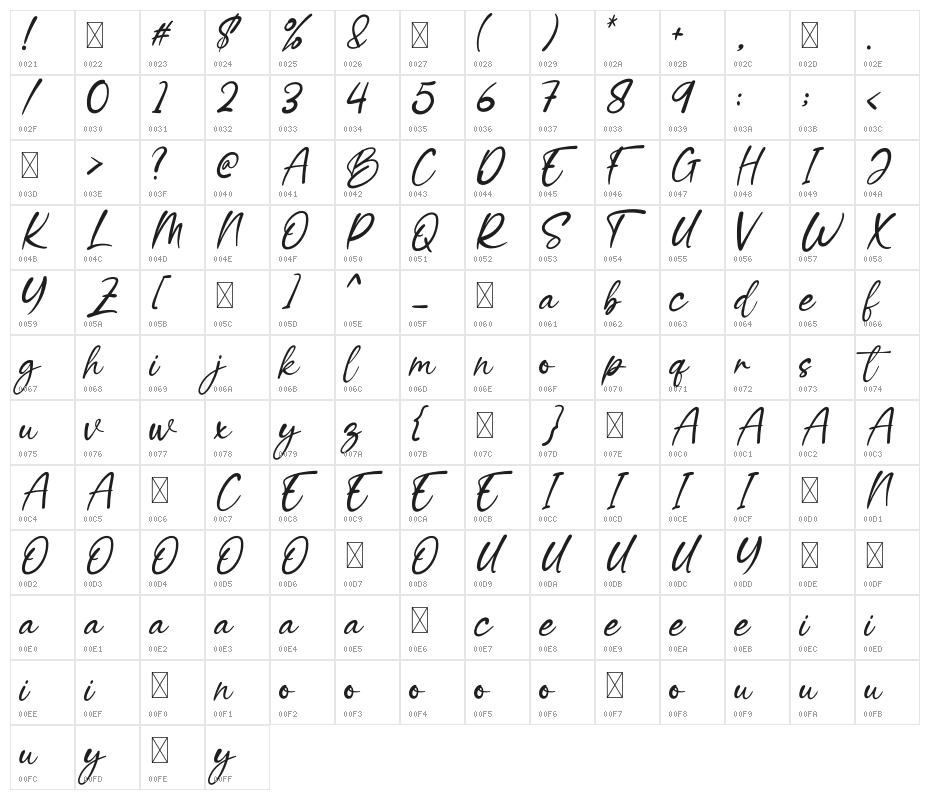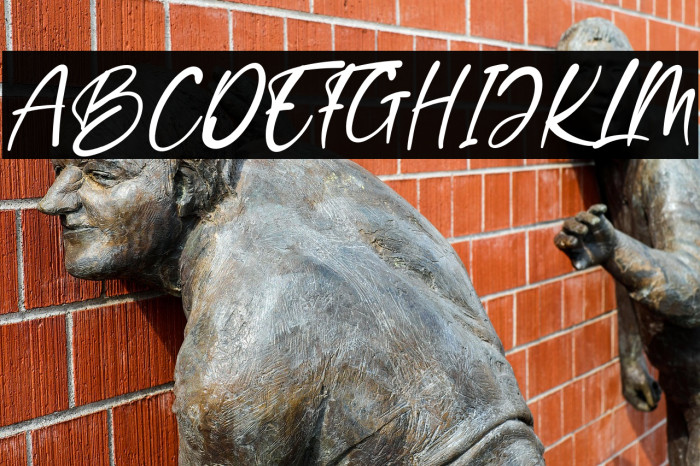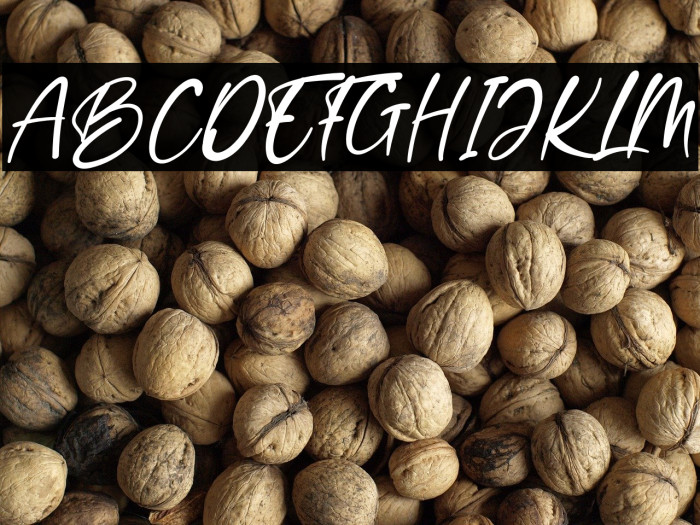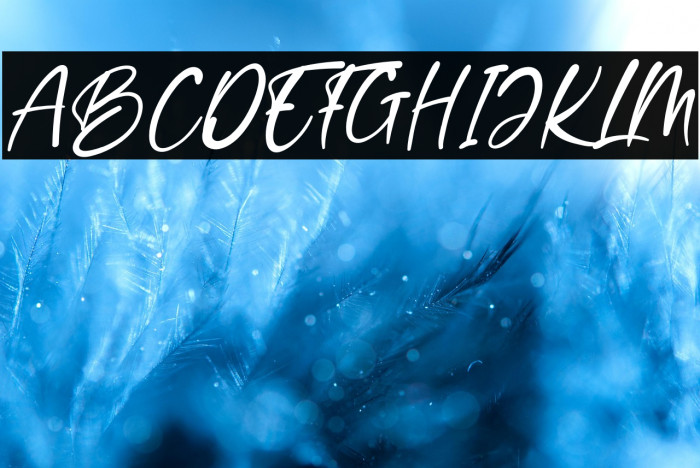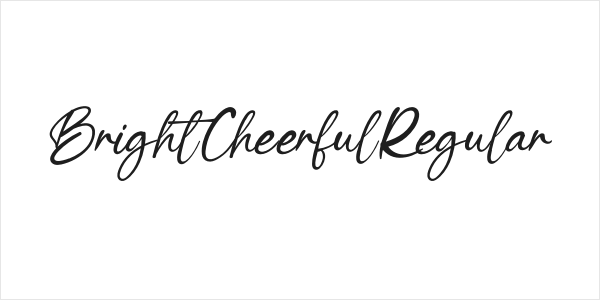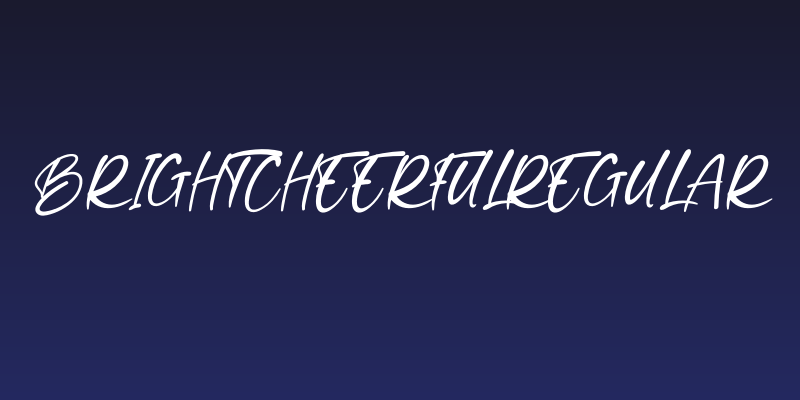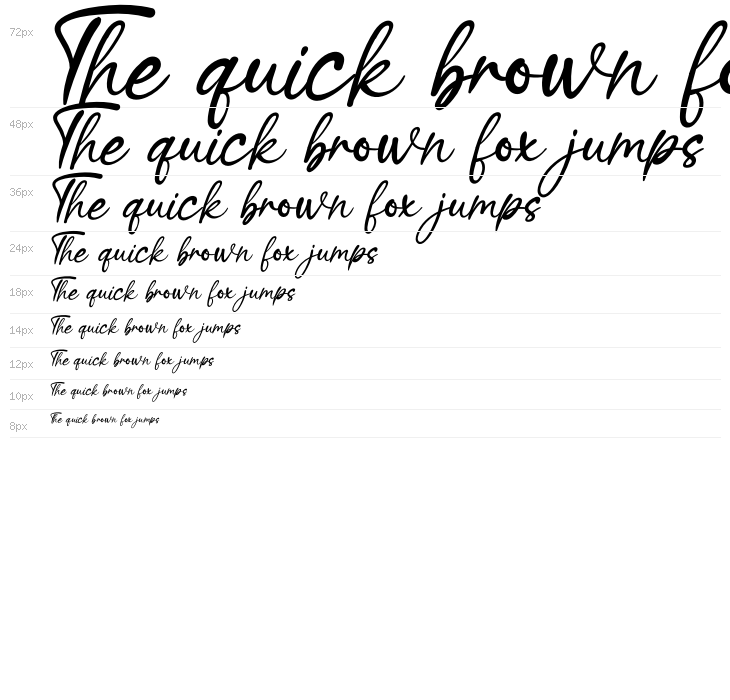
BrightCheerfulRegular Font
BrightCheerfulRegular Description
This font exudes a lively and dynamic energy, characterized by its flowing, cursive style. The letters are elegantly connected, creating a sense of movement and fluidity. The strokes are smooth and consistent, with a slight slant that adds to its graceful appearance. The uppercase letters are bold and prominent, while the lowercase letters maintain a delicate balance, offering a harmonious blend. The numerals are clear and easy to read, complementing the overall aesthetic. Special characters are thoughtfully designed, maintaining the font's cohesive look. This font is perfect for projects that require a touch of elegance and personality.
| Use Case | Logos, Invitations, Personal Branding |
| Proposed Projects | Ideal for wedding invitations, greeting cards, personal branding, and elegant logos. |